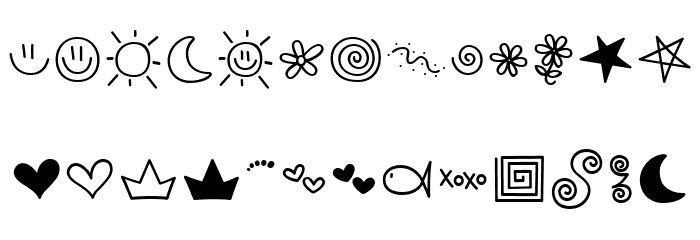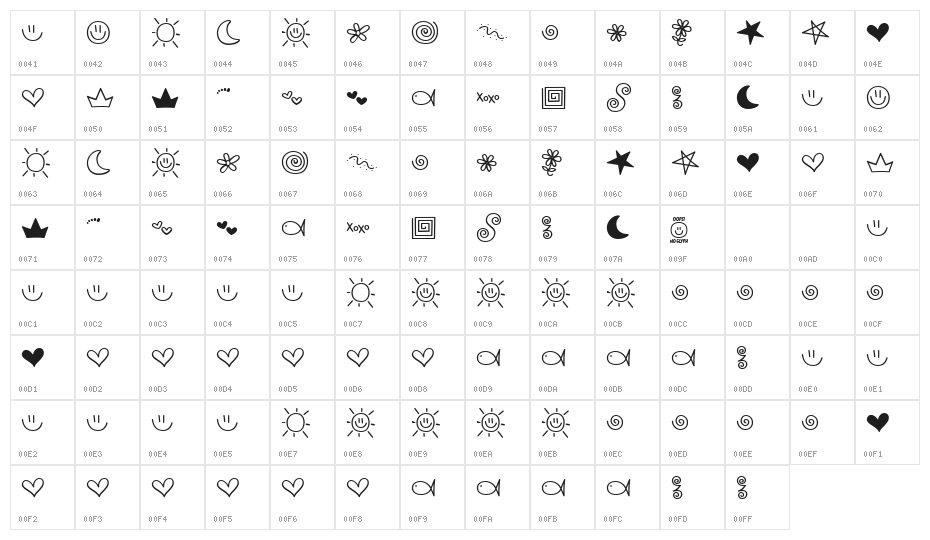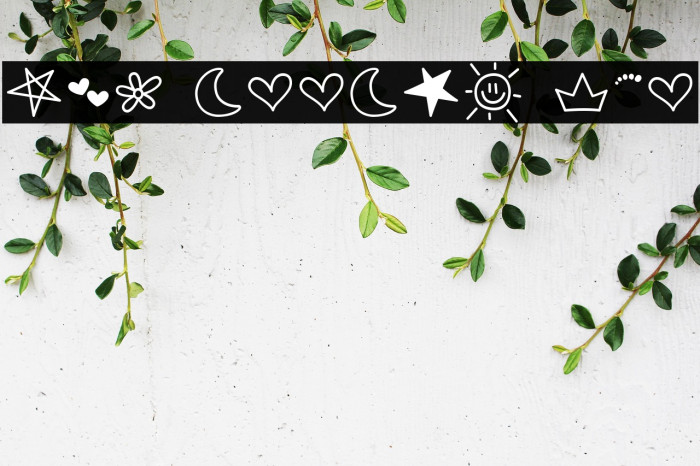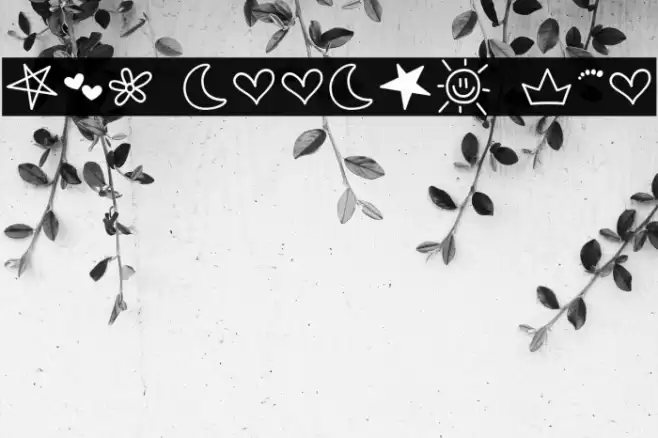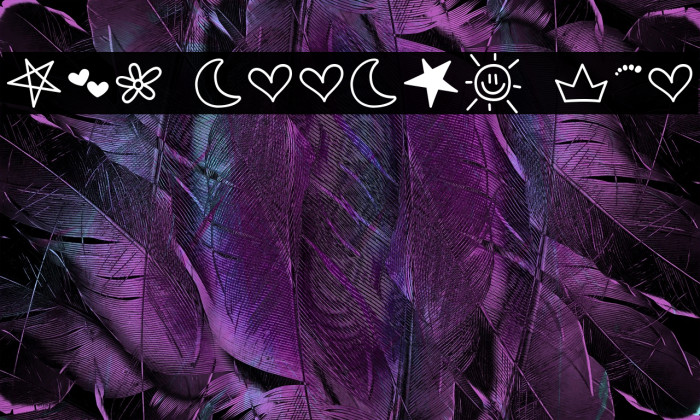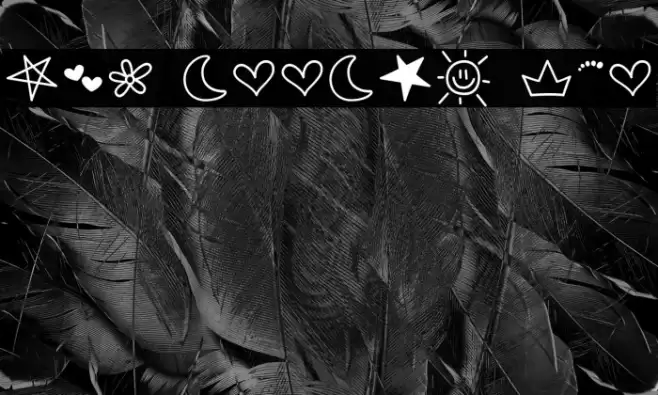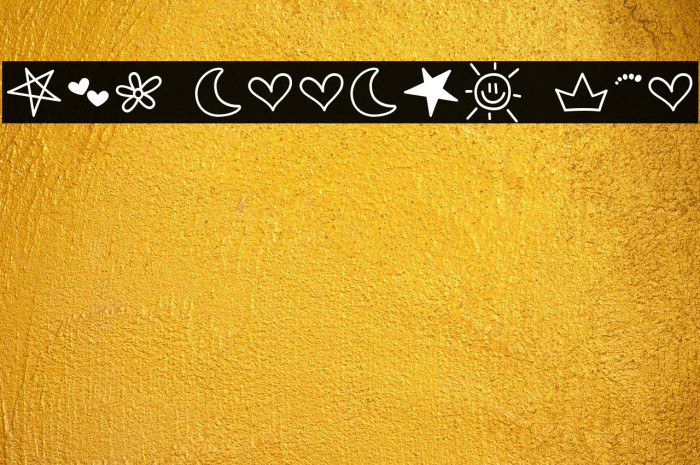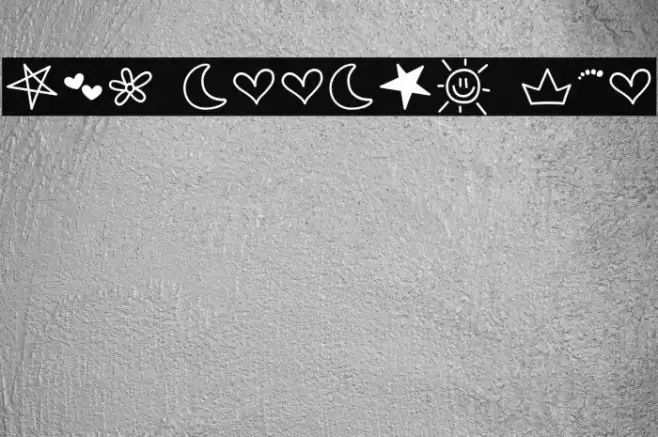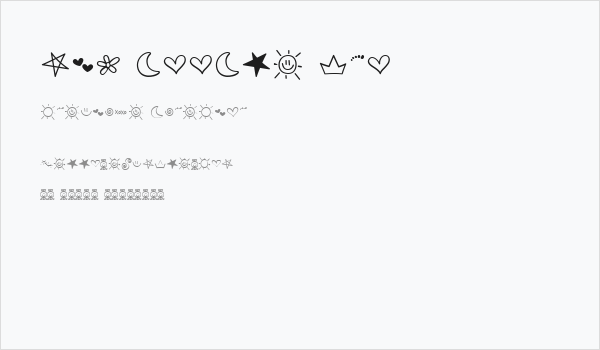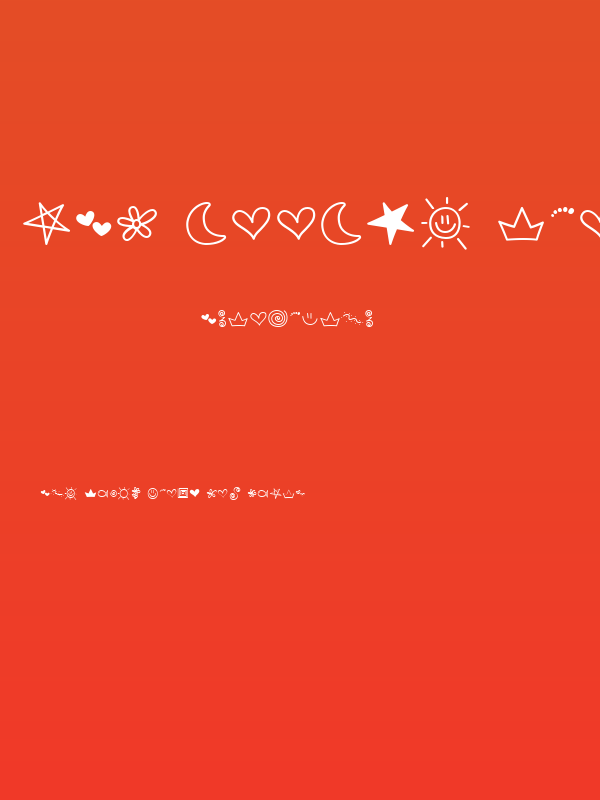
MTF Doodle PRO Font
MTF Doodle PRO Description
This collection of playful and whimsical doodles features a variety of charming symbols and icons. The designs include smiling faces, celestial elements like suns and moons, floral motifs, and abstract shapes such as spirals and stars. The style is hand-drawn with a casual, friendly feel, perfect for adding a touch of fun and creativity to any project. The icons are bold and clear, making them suitable for both digital and print media. The consistent line weight and simple forms ensure that each element is easily recognizable and versatile for various applications.
| Overall Style | Whimsical, Playful |
| Use Case | Decorative elements, Illustrations, Branding |
| Proposed Projects | Ideal for children's book illustrations, playful branding, greeting cards, and creative social media graphics. |